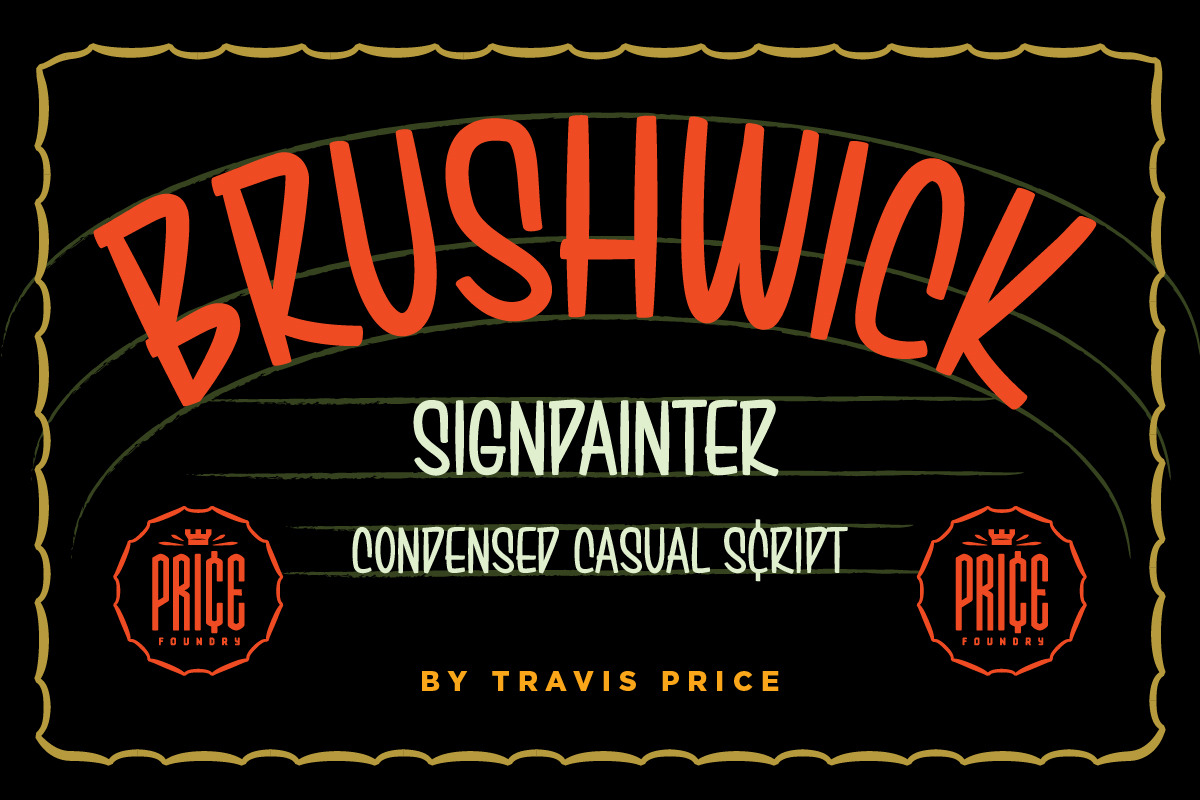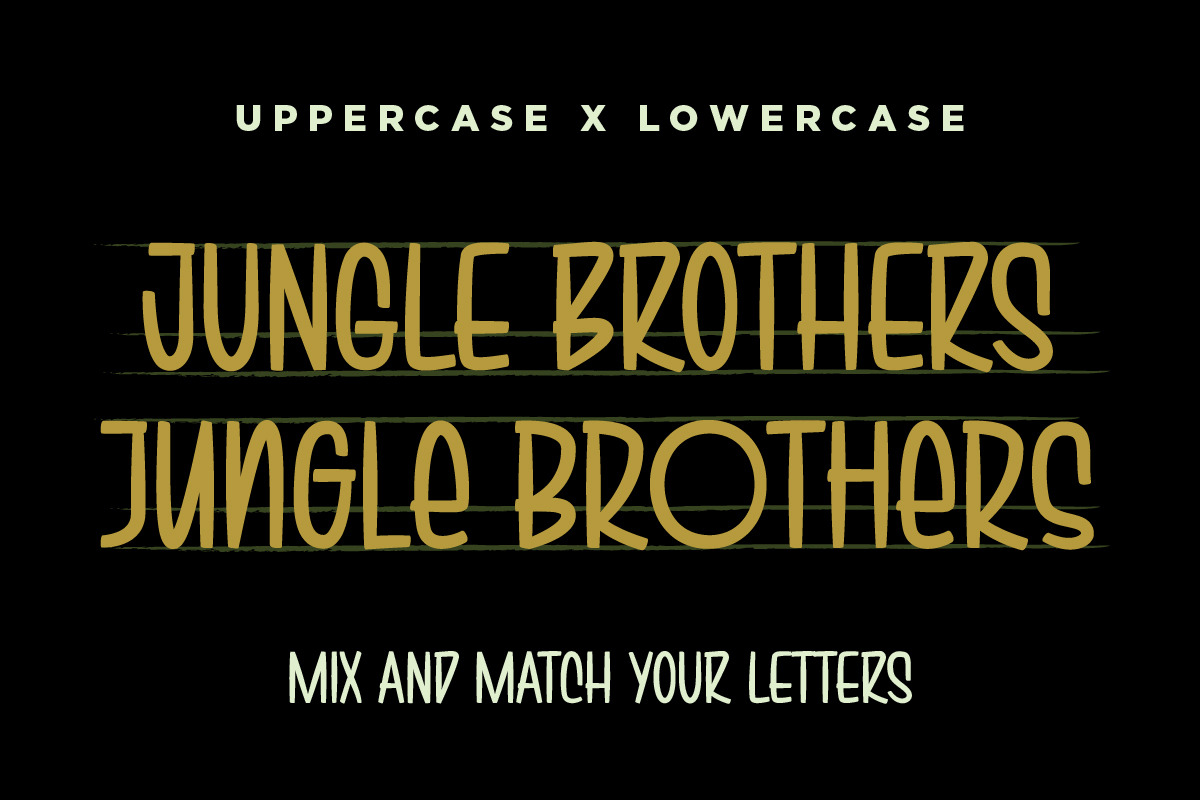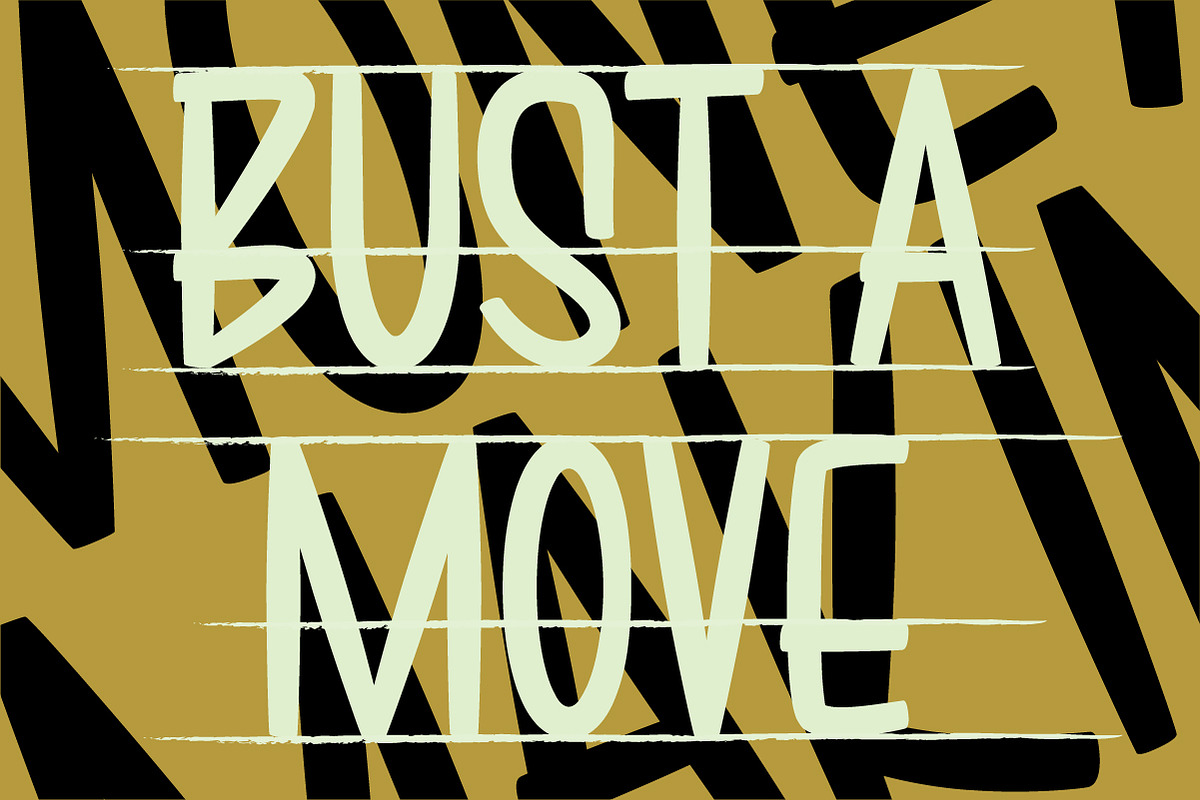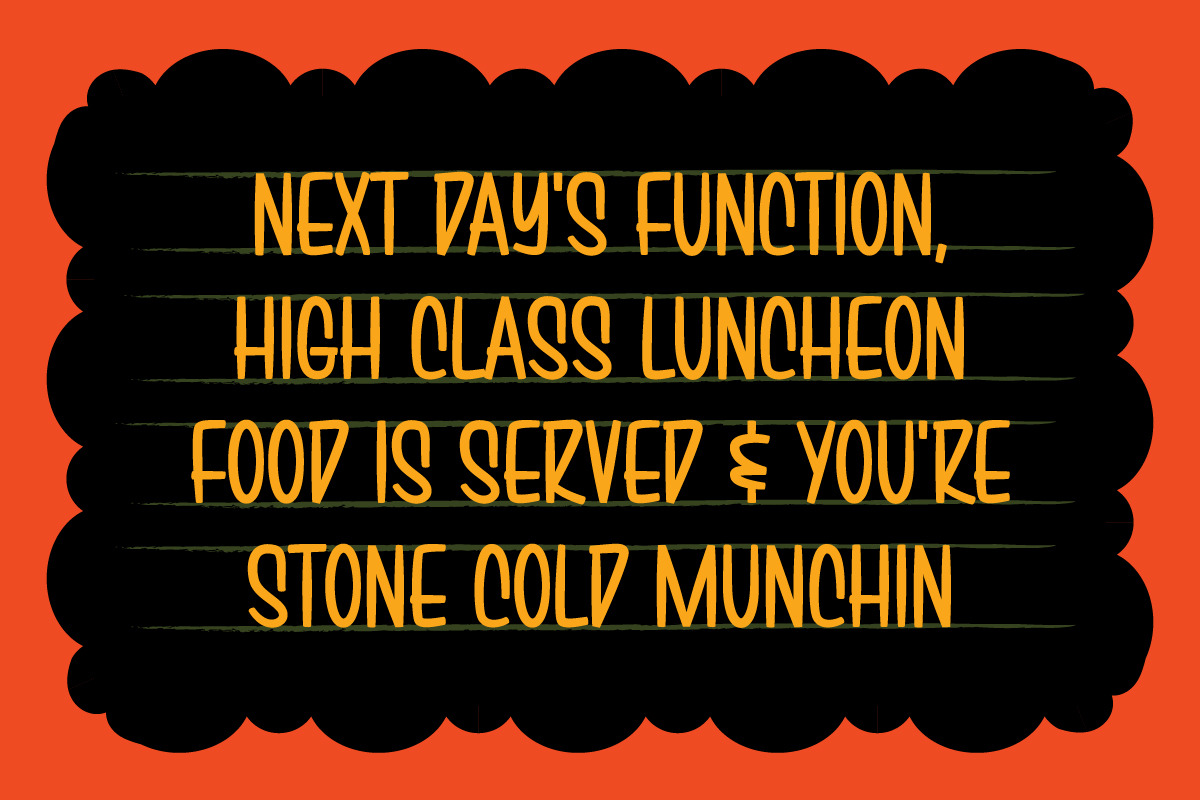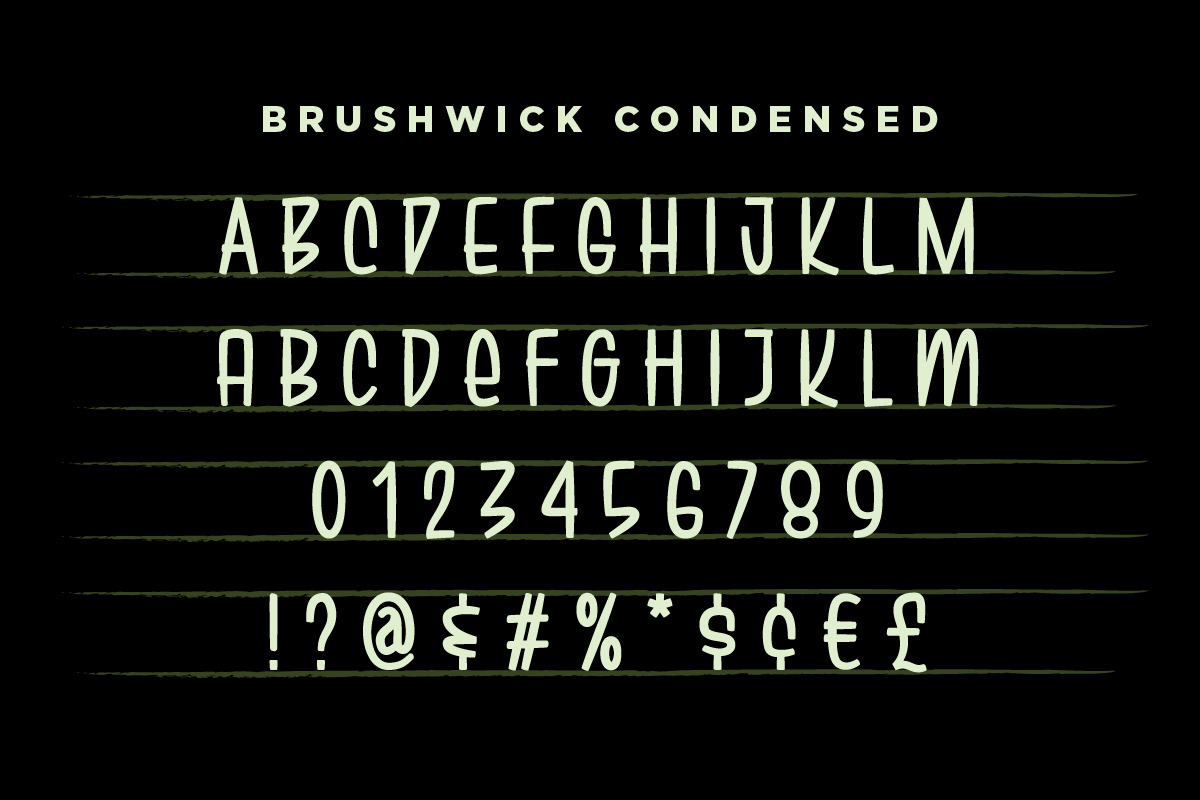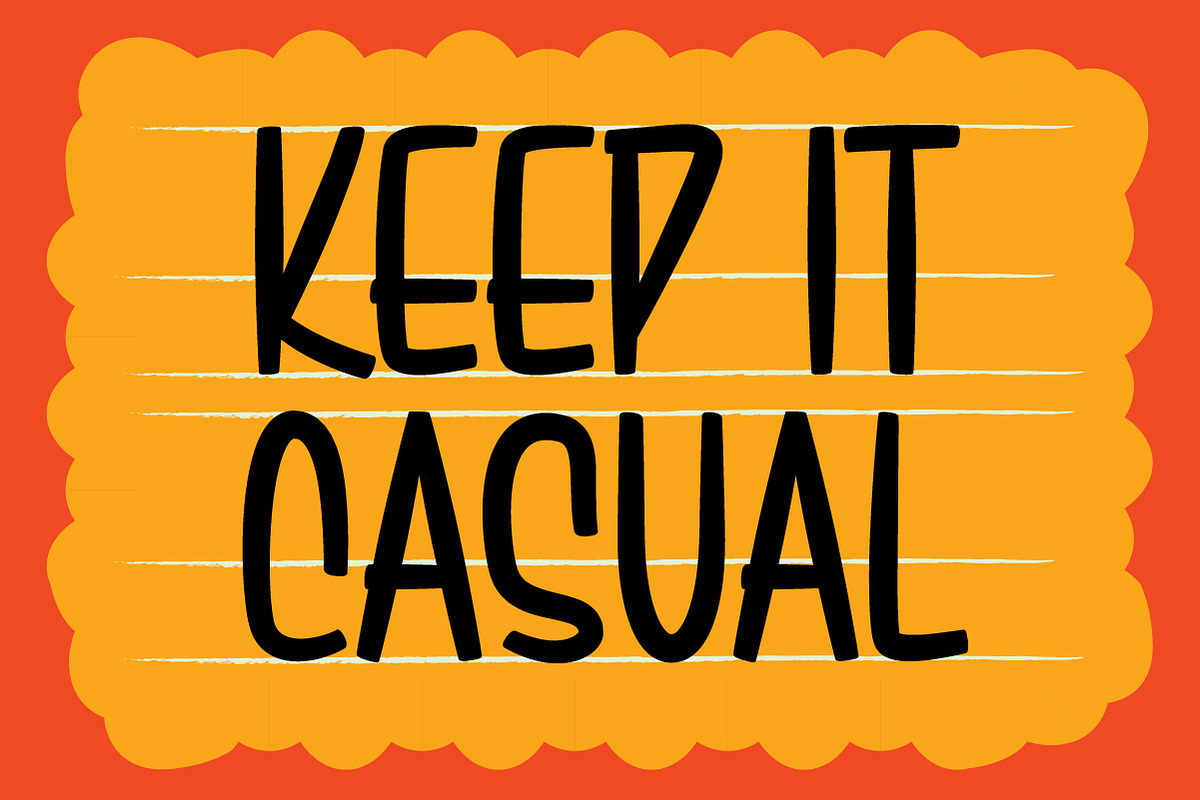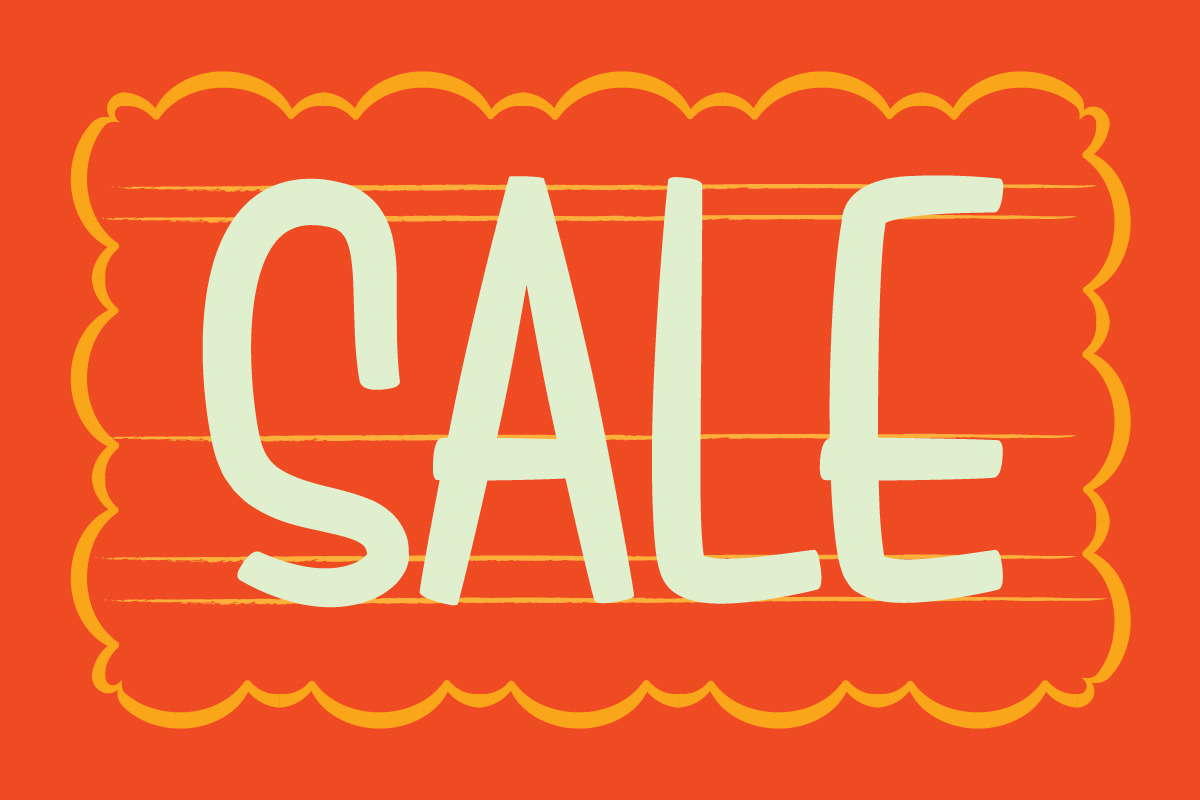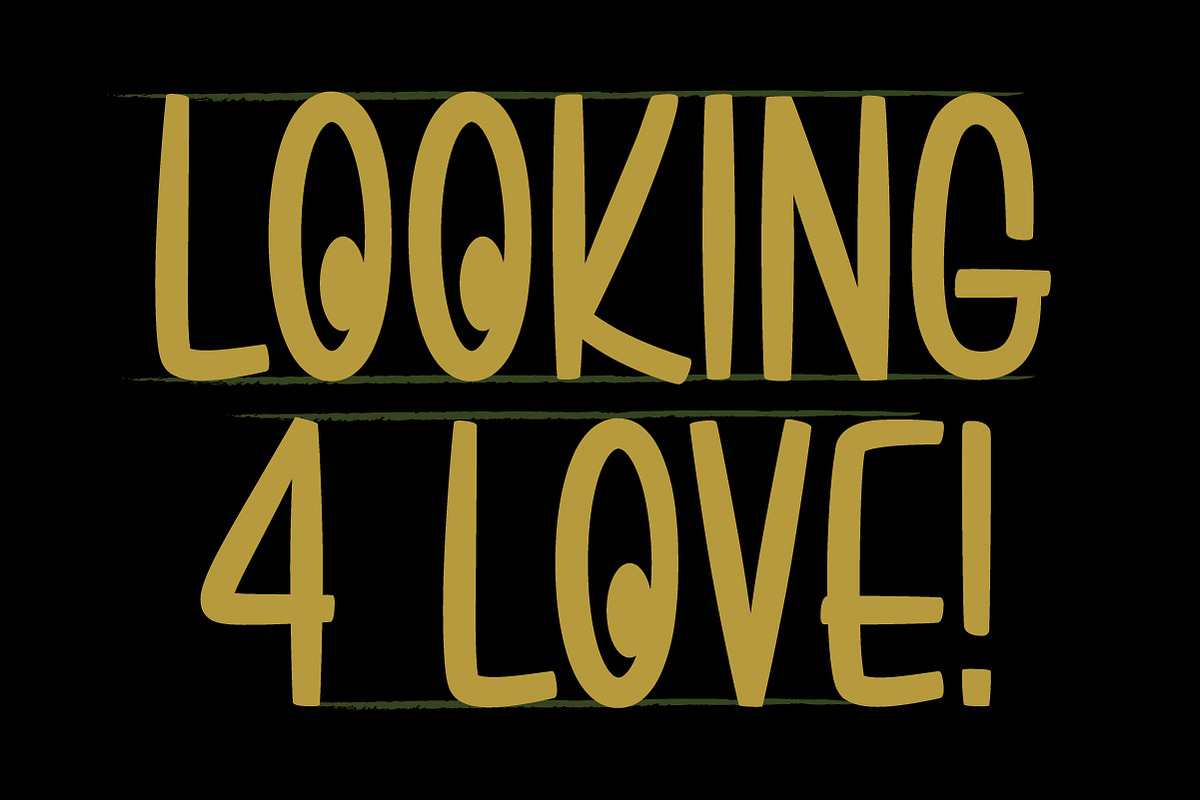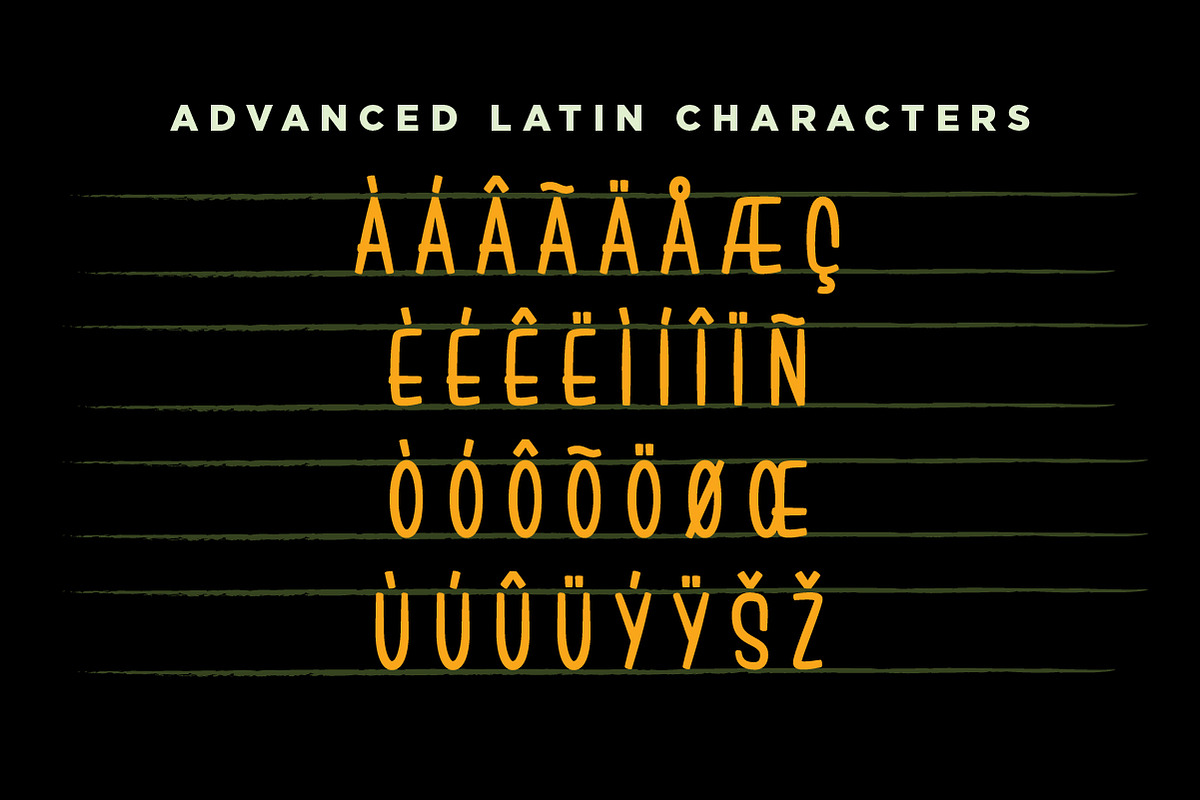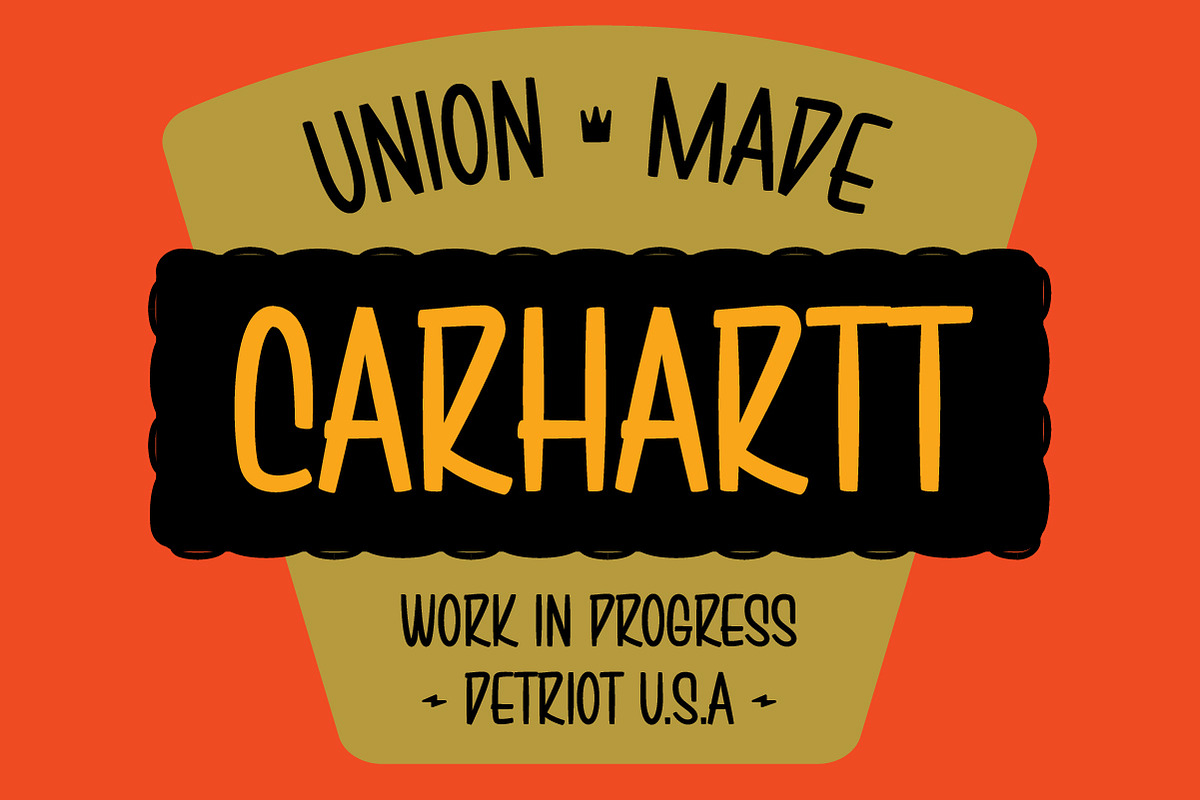
Brushwick | Casual Sign Painter Font
Brushwick is a super-condensed sign painter’s script with vintage grit and modern versatility. Tall, tight, and full of character, it captures the spirit of hand-painted storefronts, hot rods, and classic Americana. Built for logos, packaging, apparel, badges, and bold headlines, Brushwick delivers maximum impact with every stroke.
Also includes advanced Latin Characters.